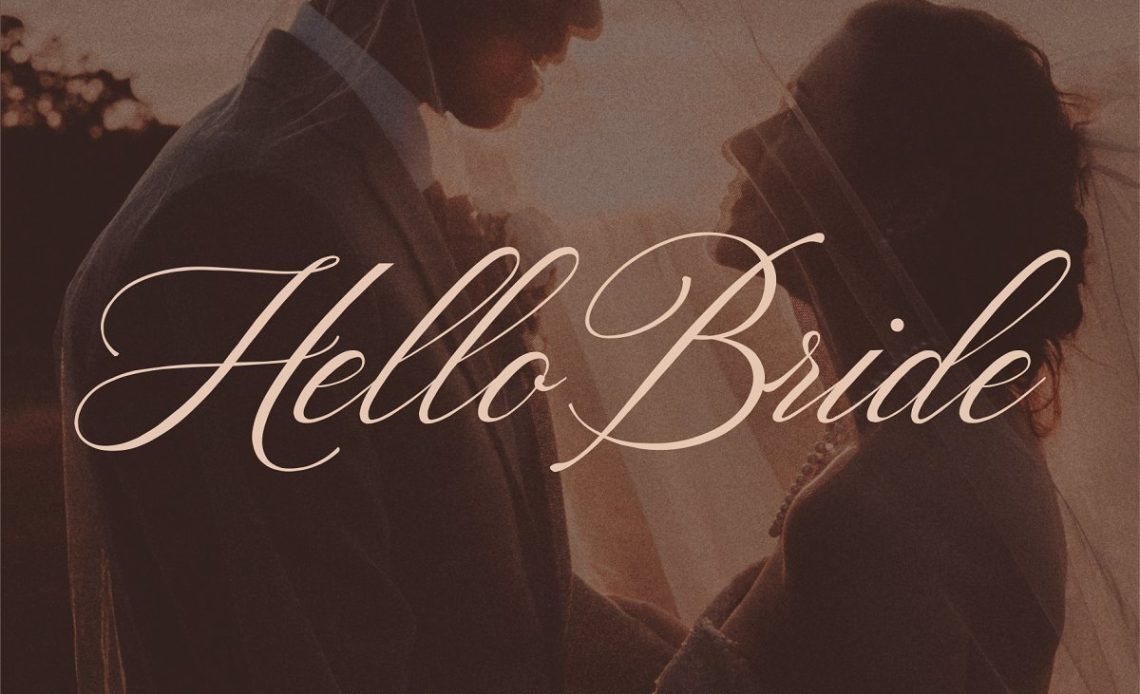
Are you looking to elevate your wedding or engagement ceremony with a touch of elegance and class? Look no further than the Hello Bride Fonts from 50Fox Studio!
This lovely script font redefines elegance with its classy calligraphy style. With its huge ligatures and alternative characters, the Hello Bride Font is perfect for adding a touch of luxury to your wedding or engagement ceremony. This font is not only perfect for weddings, but it's also great for creating logos, printed quotes, badges, insignia, packaging, headlines, posters, t-shirts, apparel, greeting cards, wedding invitations, and much more!
If you want to create a unique and captivating wedding brand or website, the Hello Bride Font is the perfect choice. This font is the best font for website logos, as it exudes sophistication and timeless style.
In short, if you want to create a luxurious and elegant wedding or engagement ceremony that is sure to impress, the Hello Bride Font is the perfect choice. Don't settle for anything less than the best - redefine elegance with Hello Bride!